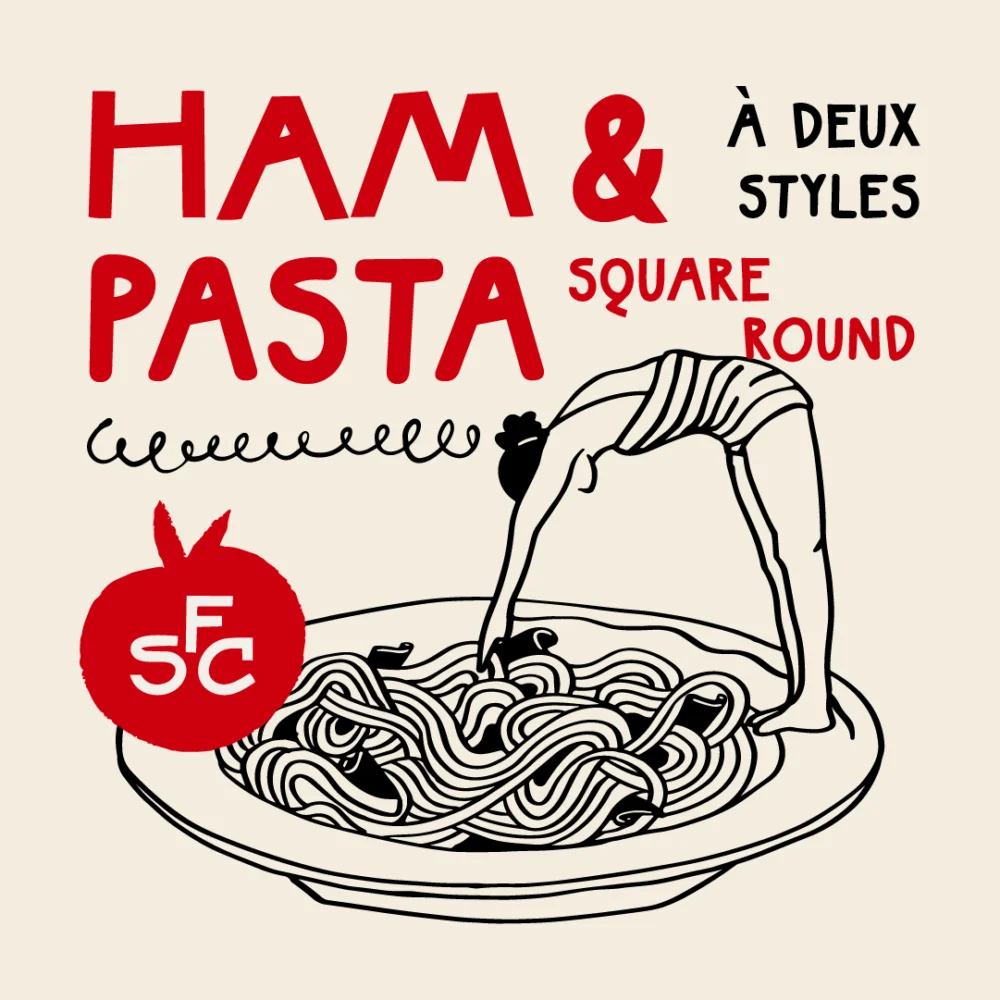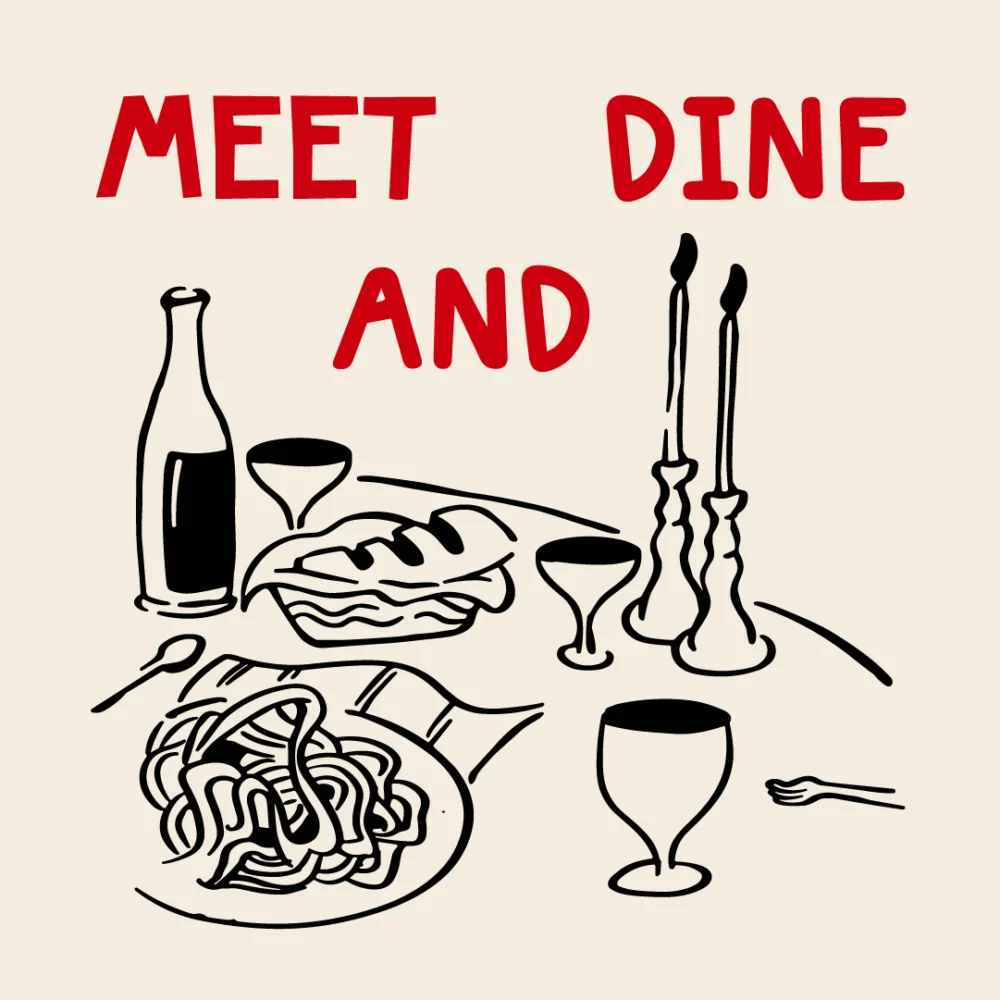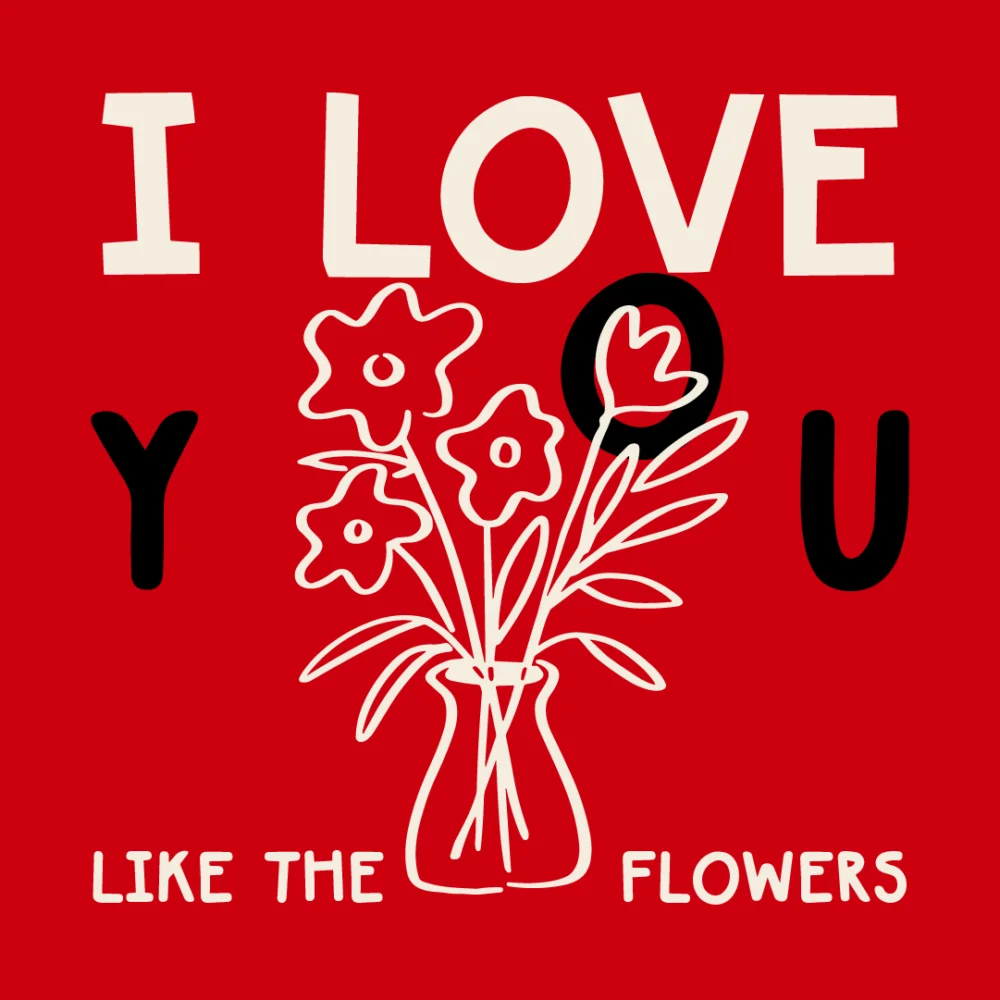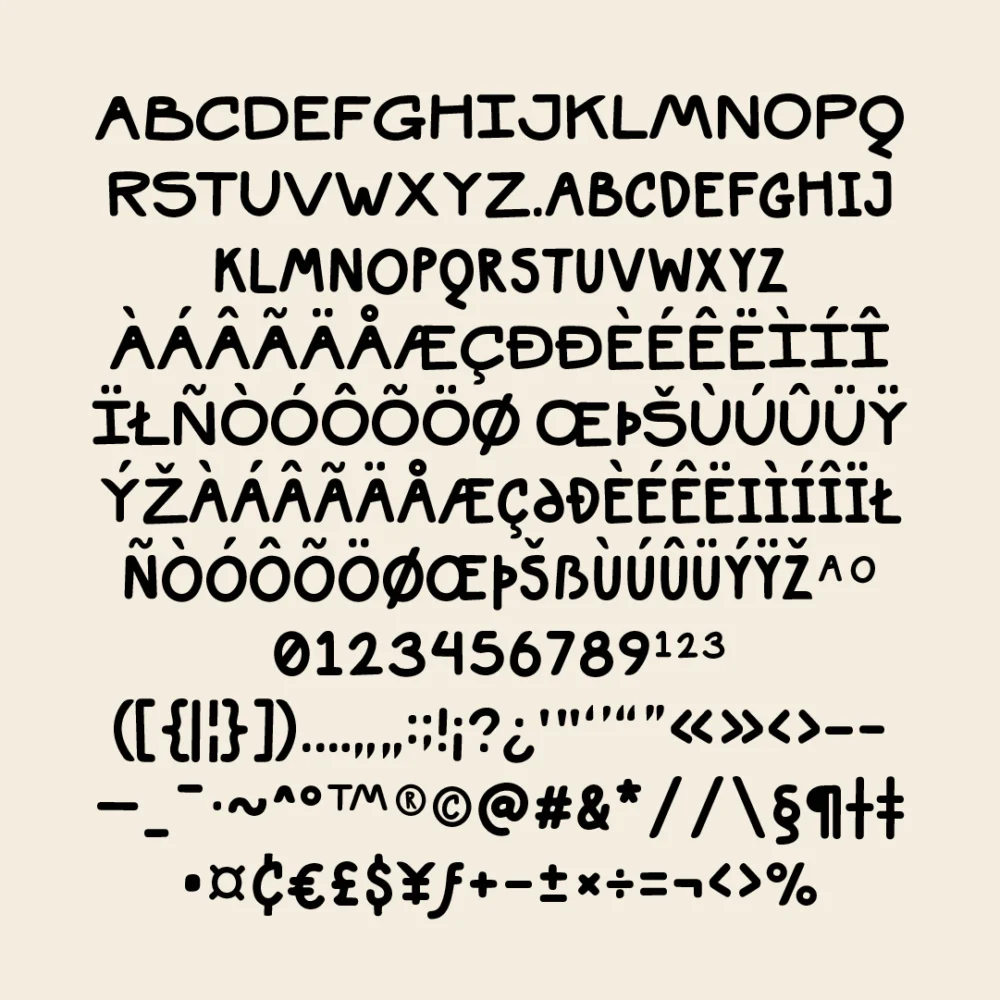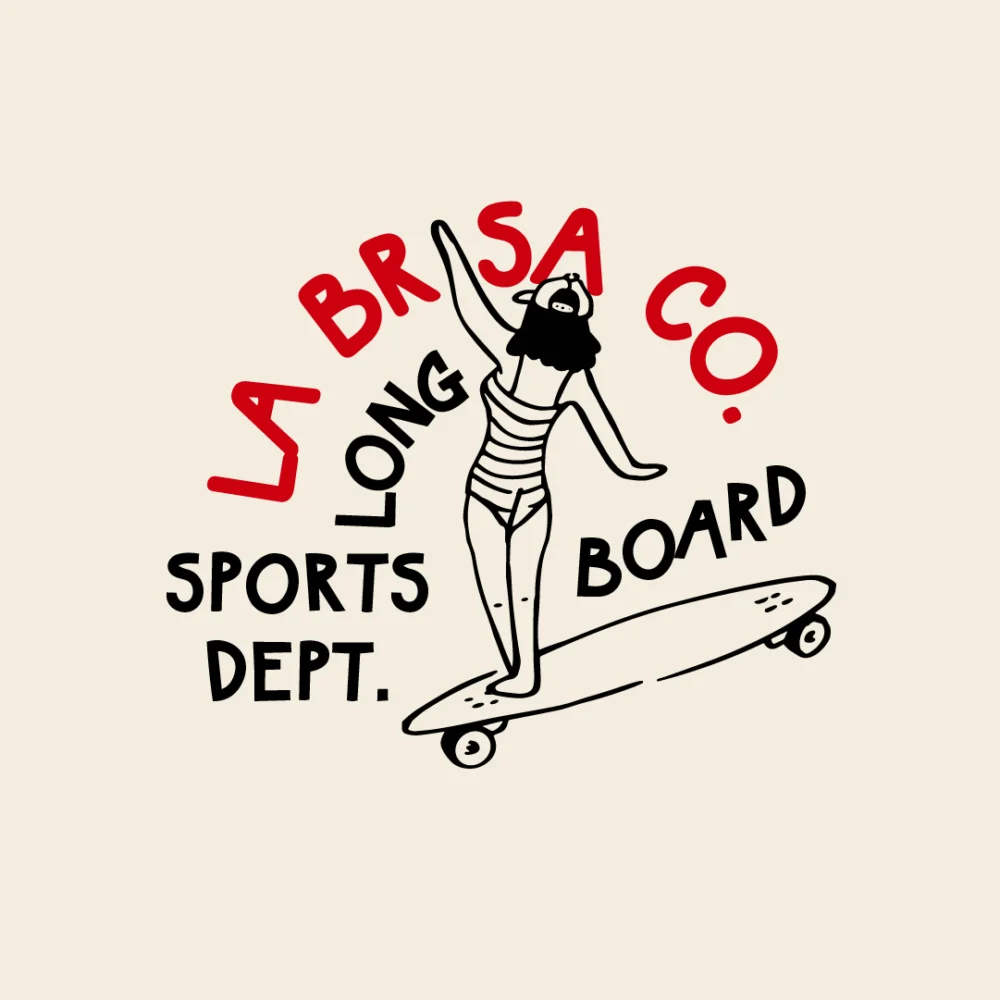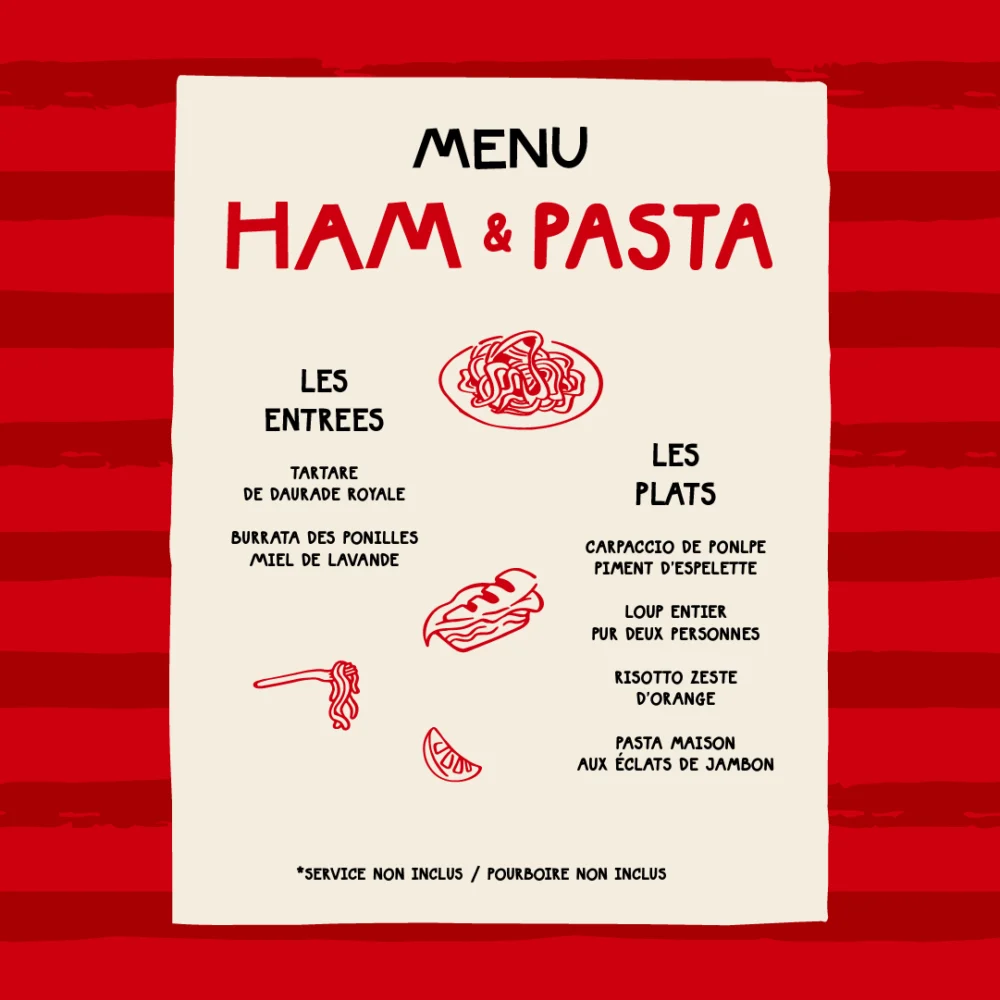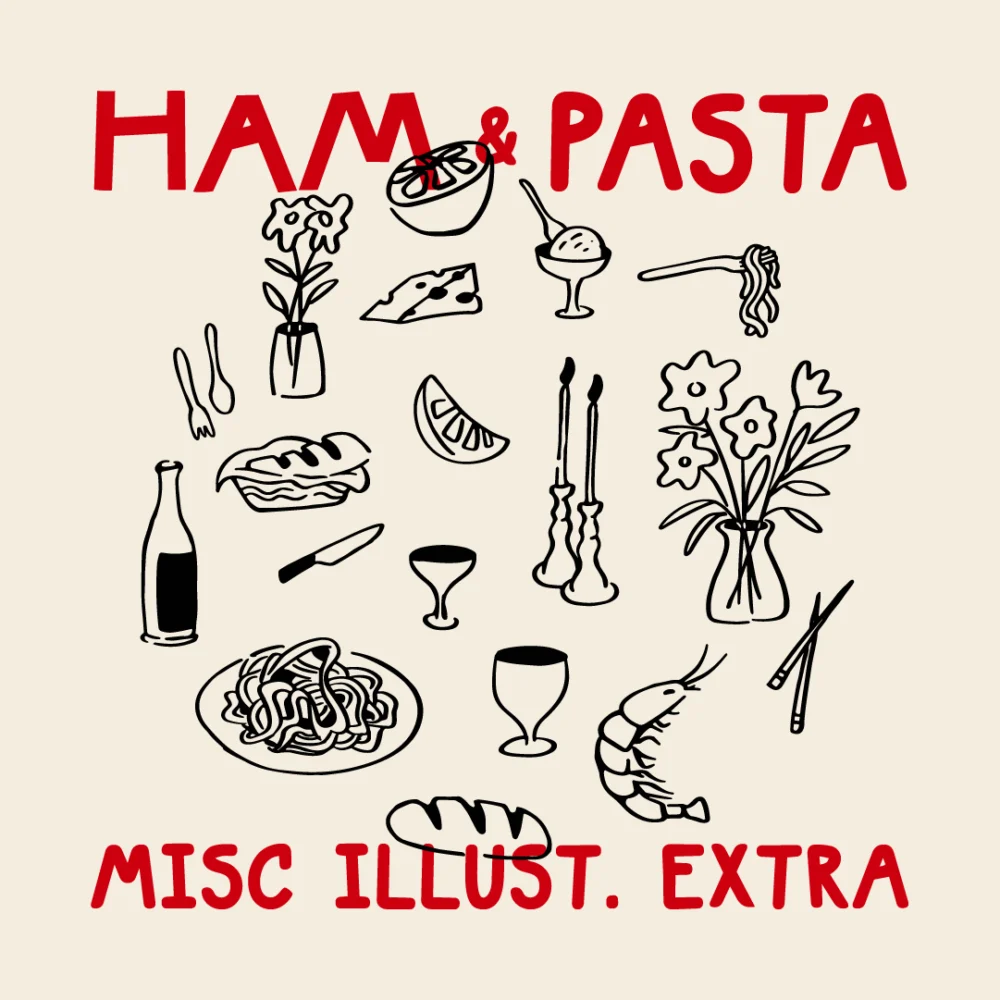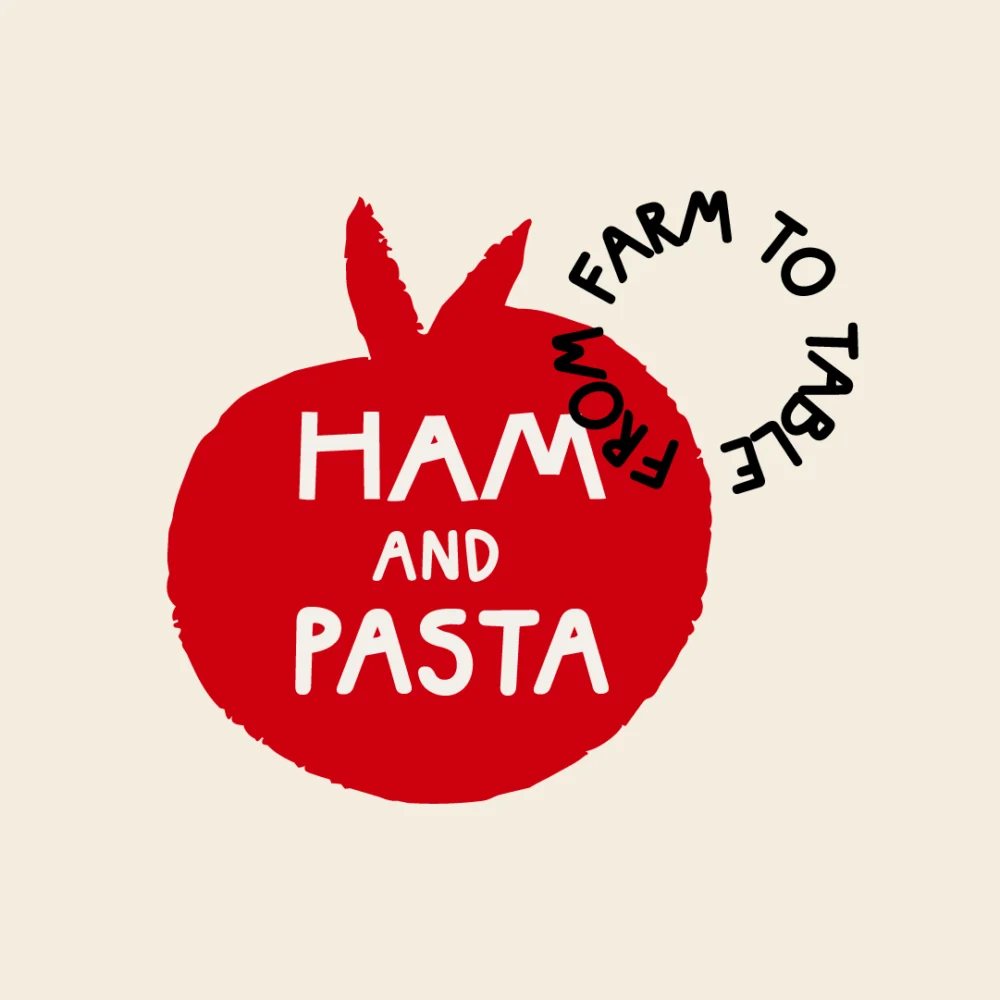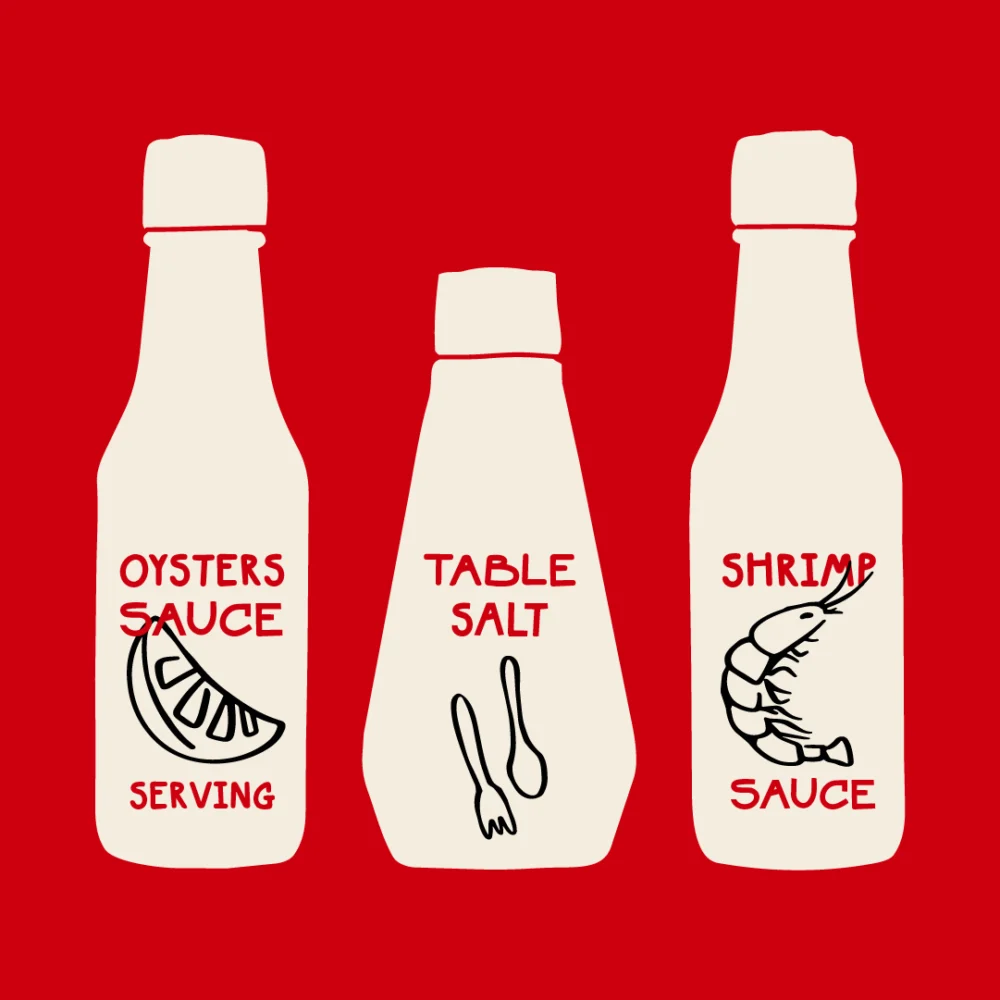
SFC Ham & Pasta is a charming hand-drawn display font crafted to bring warmth, personality, and playful character into your creative projects. Inspired by vintage Italian restaurants, cozy cafés, and handmade food, this font delivers a friendly handcrafted feel that blends nostalgic charm with a modern touch. Designed as a versatile duo, both styles complement each other beautifully, making it easy to create expressive typography that feels authentic, casual, and full of life. Whether you’re working on branding or editorial pieces, Ham & Pasta adds a delightful human touch to every design.
Ideal Applications for SFC Ham & Pasta Typeface
- Restaurant & Café Branding
- Menu Design & Food Packaging
- Posters & Social Media Graphics
- Editorial & Lifestyle Layouts
- Merchandise & Label Design
- Duo Font (Hand-Drawn Display Styles)
- Basic Numerals & Punctuation
- Multilingual Support
Extras Included
- 20+ Hand-Drawn Illustrations
- Food Elements & Pasta Dishes
- Flowers & Decorative Elements
- Table Objects (Wine Glass, Bread, Candle, etc.)
- Ready-to-use Visual Assets